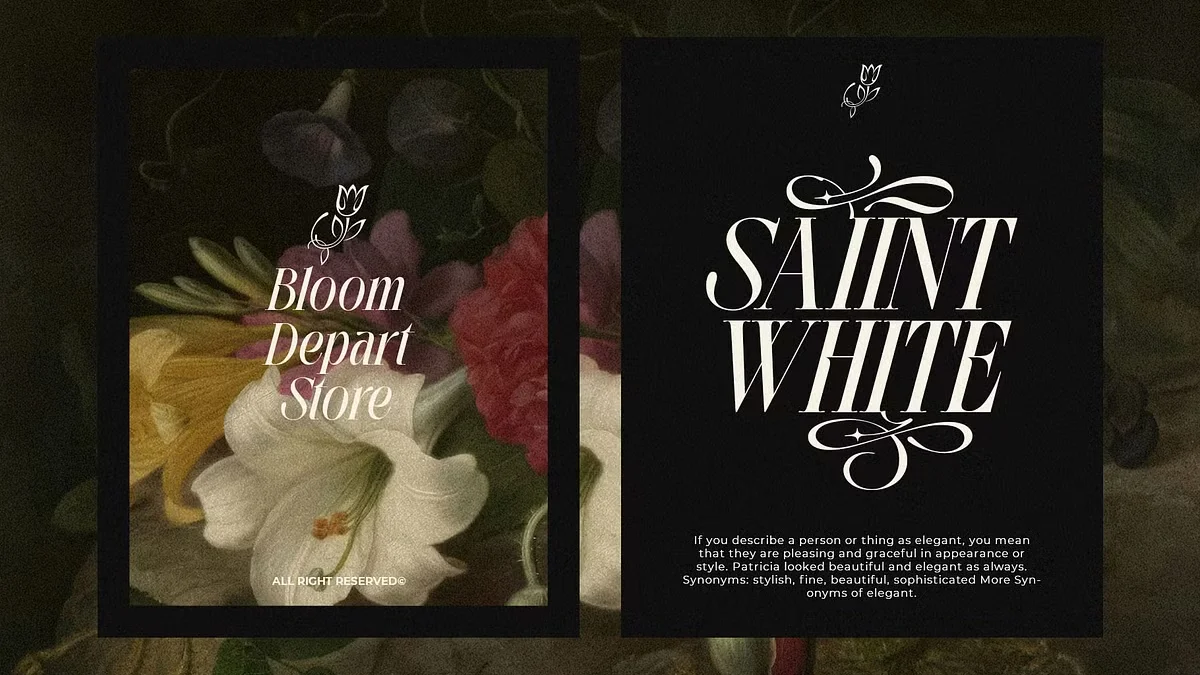
Discover the Nothina Mount Typeface: Where Timeless Elegance and Nature Collide
Some fonts simply display words. Others, however, tell a story before you even read the first letter. The Nothina Mount typeface, a masterwork from Alit Design, belongs firmly in that second category. It is a stunning example of how letterforms can transcend mere utility to become art. This isn’t just another serif font. Instead, Nothina Mount presents a slanted, romantic posture that feels both dynamic and gracefully poised. It merges the foundational strength of a classic serif with the fluid, personal touch of a handwritten script. The result is a typeface that feels alive, breathing organic beauty and sophisticated charm into every character.
When you first see Nothina Mount, you notice its distinctive slant. This isn’t a simple italic; it’s a deliberate structural choice that gives the font a sense of forward motion and elegance. Consequently, it captures a feeling of natural movement, like a flower leaning toward the sun. This design philosophy is what makes the typeface so compelling. It’s a tool for designers, artists, and creators who want to convey a message of refined beauty and intentional craftsmanship.
The Anatomy of a Modern Classic
What gives the Nothina Mount typeface its unique personality? The magic lies in a delicate balance of several key elements. It’s a sophisticated blend of tradition and expressive freedom, crafted with incredible attention to detail.
A Graceful Slanted Structure
The most immediate feature is its elegant slant. Unlike a standard italic, which is often a slanted version of a roman font, the entire architecture of Nothina Mount is built on this angle. This design choice infuses text with a sense of rhythm and fluidity. It feels less like a static block of text and more like a line of poetry flowing across the page. Think about the difference between a formal portrait and a candid photograph capturing movement. This typeface achieves the latter, creating an impression that is both dynamic and effortlessly chic.
Where Sturdy Serif Meets Flowing Script
Herein lies the true genius of Nothina Mount. It successfully marries two seemingly different typographic worlds. The base of the letters has the high contrast and structural integrity of a traditional serif. This ensures readability and gives it a timeless, classic foundation. However, Alit Design has woven in the expressive charm of handwritten scripts. You can see this in the swashes, terminals, and ligatures, which curve and flow with calligraphic elegance. This combination makes the font incredibly versatile. It’s strong enough for a headline, yet delicate enough for a wedding invitation.
A Garden of Glyphs: The Decorative Flourishes
With an astonishing 898 glyphs, Nothina Mount is not just a font but a complete design toolkit. Have you ever felt limited by a standard character set? This typeface solves that problem beautifully. It includes a vast array of stylistic alternates, decorative ligatures, and ornate swashes. Many of these alternates feature delicate floral motifs and botanical elements that seem to grow directly from the letterforms.
These features allow you to customize your text to perfection. You can add a flourishing tail to the end of a word, connect letter pairs with a unique ligature, or swap a standard character for a more decorative version. This level of detail transforms typography from a simple task into an act of artistic composition.
The Vision of Alit Design: Craftsmanship in Every Curve
To truly appreciate the Nothina Mount typeface, it helps to understand the philosophy of its creator, Alit Design. This studio is renowned for its dedication to detailed craftsmanship and artistic storytelling through type. They don’t just create fonts; they build typographic systems that are rich with personality and narrative potential.
Nothina Mount perfectly reflects this commitment. Every curve, serif, and flourish feels intentional and meticulously placed. The design process was clearly not just about creating legible letters, but about capturing a specific mood—one of romance, nature, and timeless charm. This human touch is what elevates the font from a digital product to a piece of art that designers can use to tell their own compelling stories.
Putting the Nothina Mount Typeface to Work
A beautiful font is only as good as its application. So, where does Nothina Mount truly shine? Its unique blend of elegance and organic charm makes it a powerful choice for a wide range of projects.
For Unforgettable Luxury Branding
For high-end products, branding is everything. Nothina Mount immediately communicates a sense of luxury, quality, and exclusivity. Imagine it on the packaging for a boutique perfume, a line of organic skincare, or a bespoke jewelry brand. Its elegant letterforms and potential for custom flourishes make it an ideal choice for creating a logo that feels both a signature and a statement. It suggests that the product within is crafted with the same care and attention to detail as the font itself. Using this slanted serif font helps brands stand apart in a crowded marketplace.
For Dreamy Wedding Invitations and Stationery
Ultimately, the Nothina Mount typeface is a versatile tool that rewards experimentation. Its rich character set and inherent beauty offer endless possibilities for creating truly unique and memorable designs. It’s more than just a font; it is an invitation to infuse your work with nature, romance, and an undeniable touch of class.